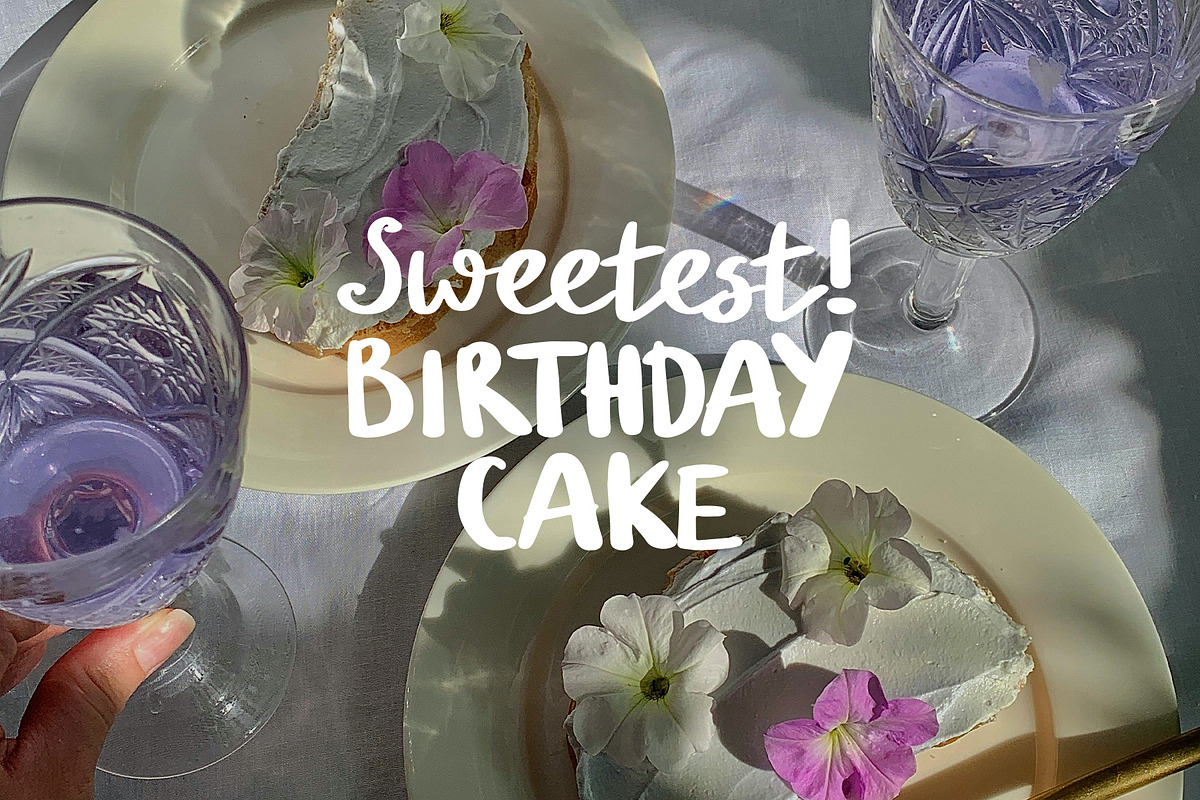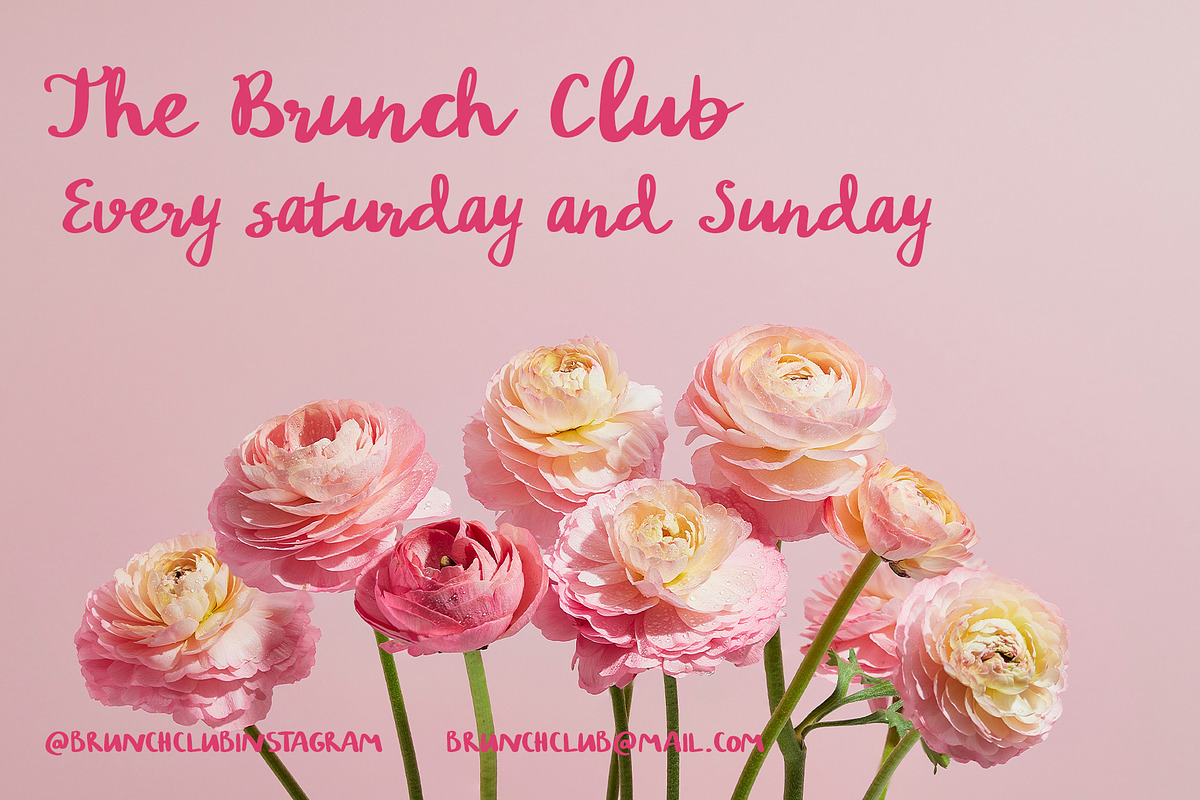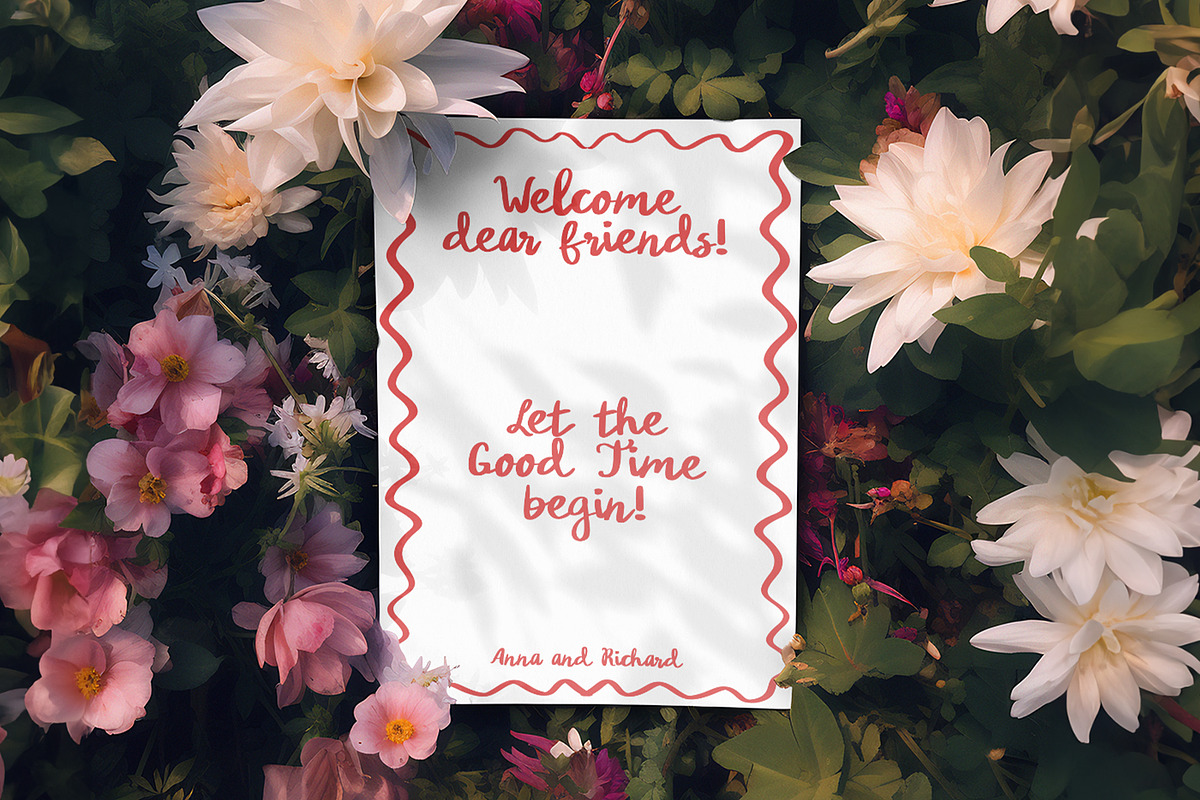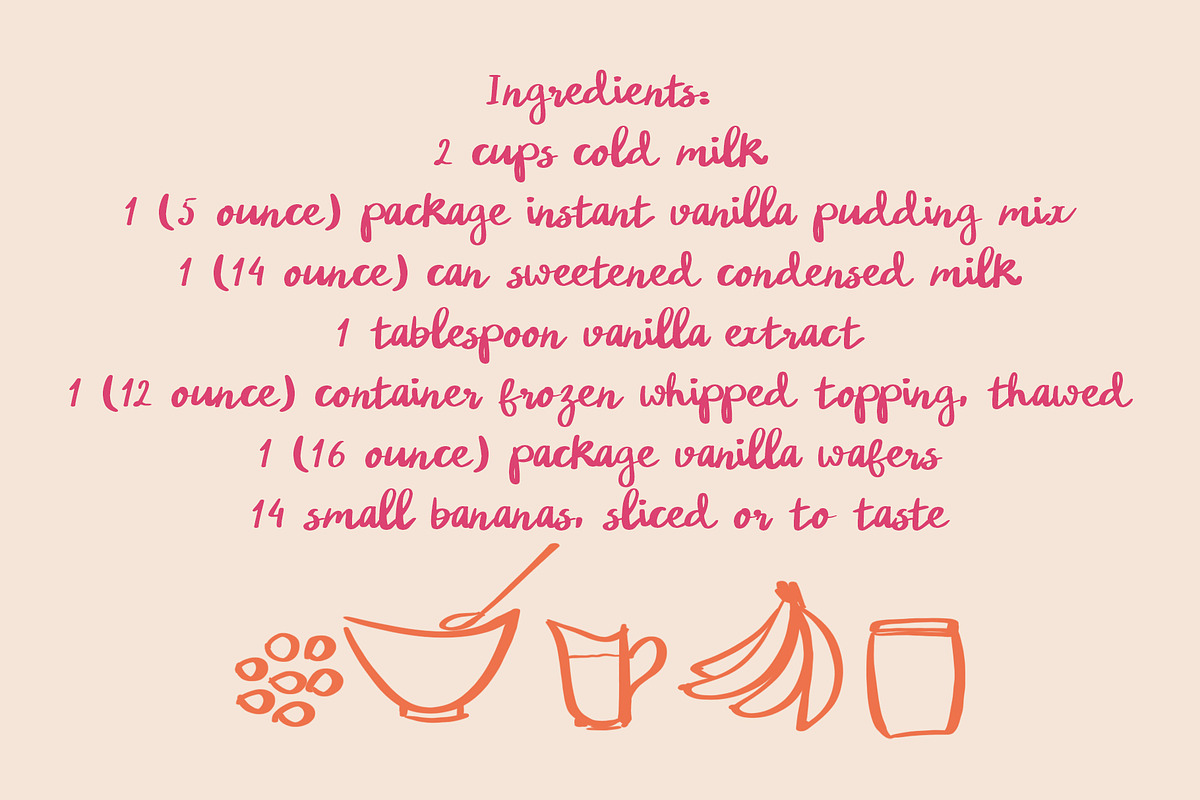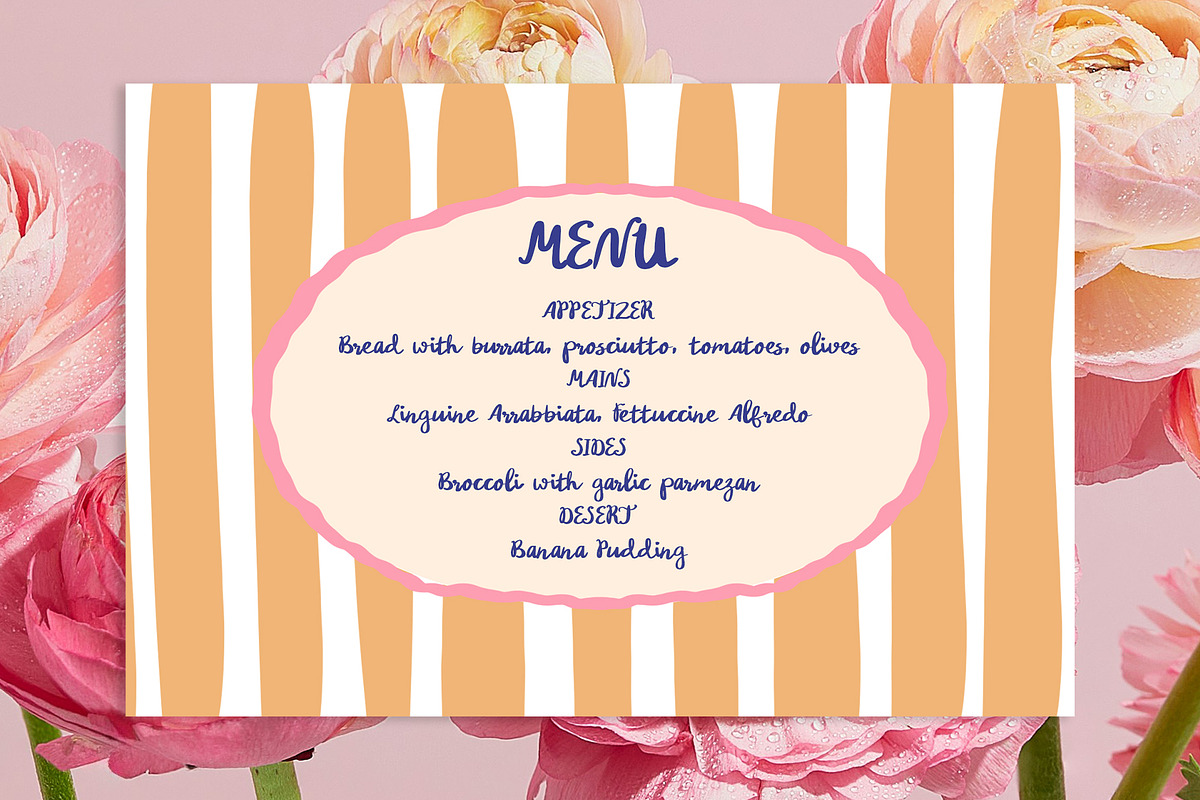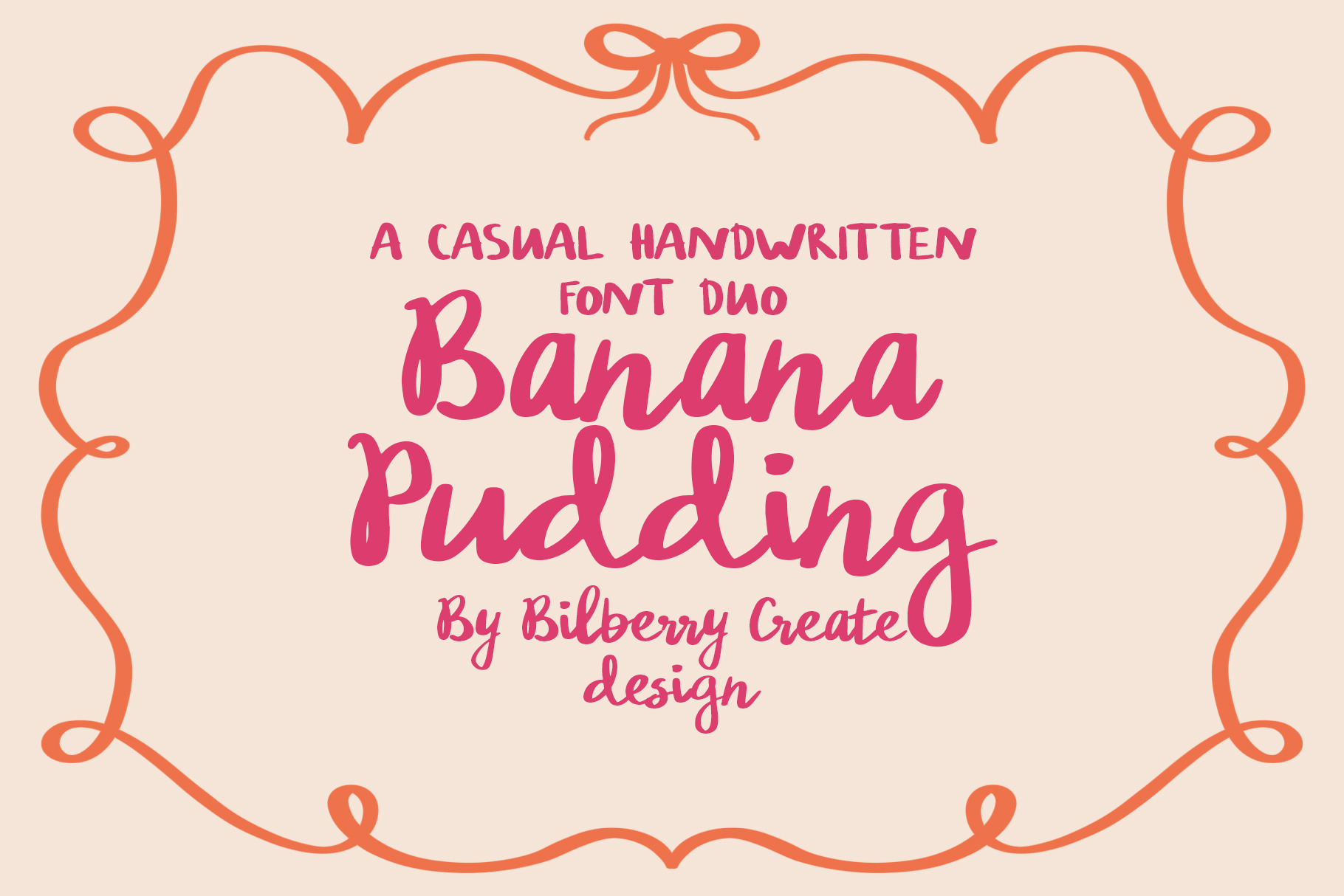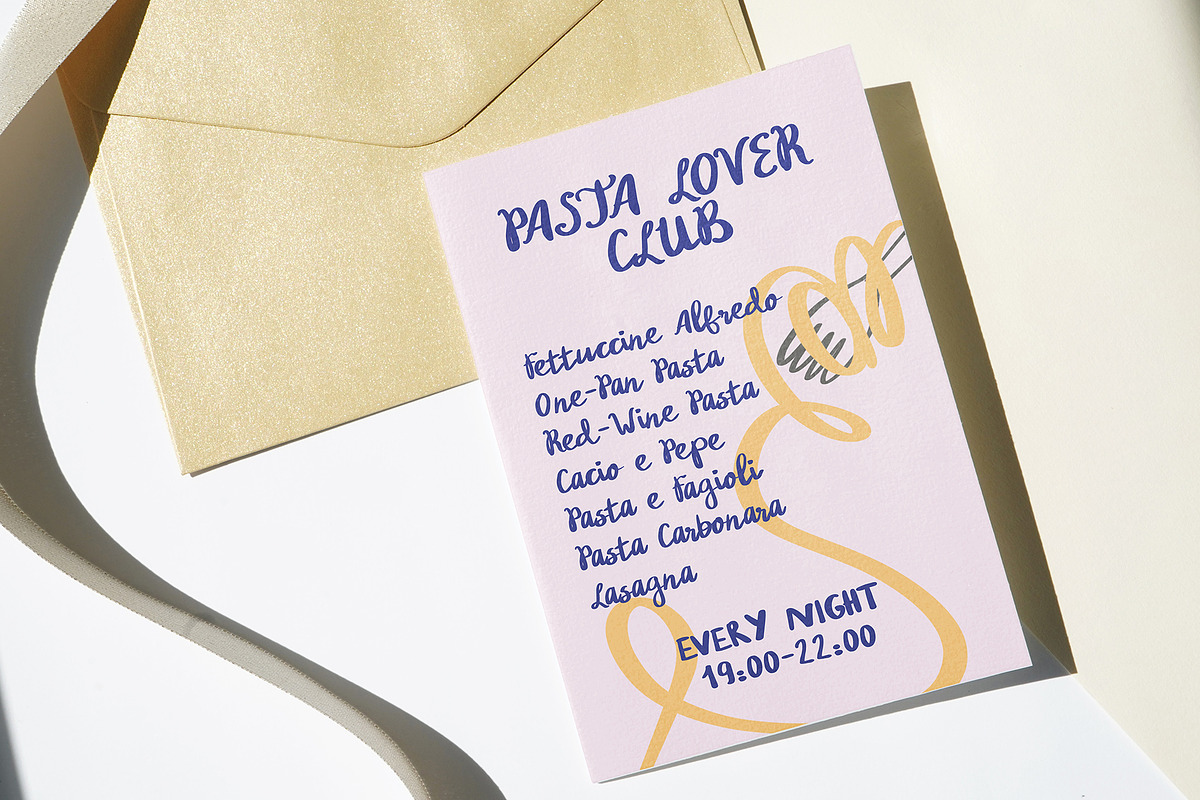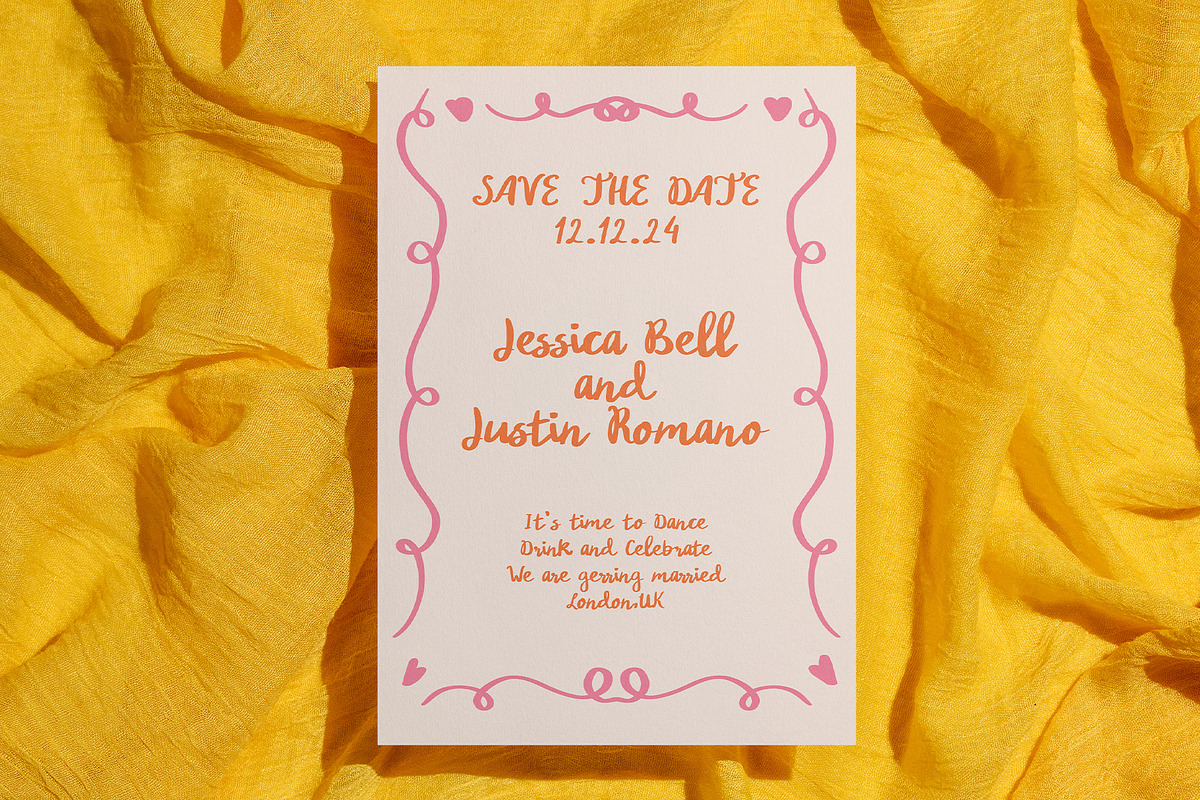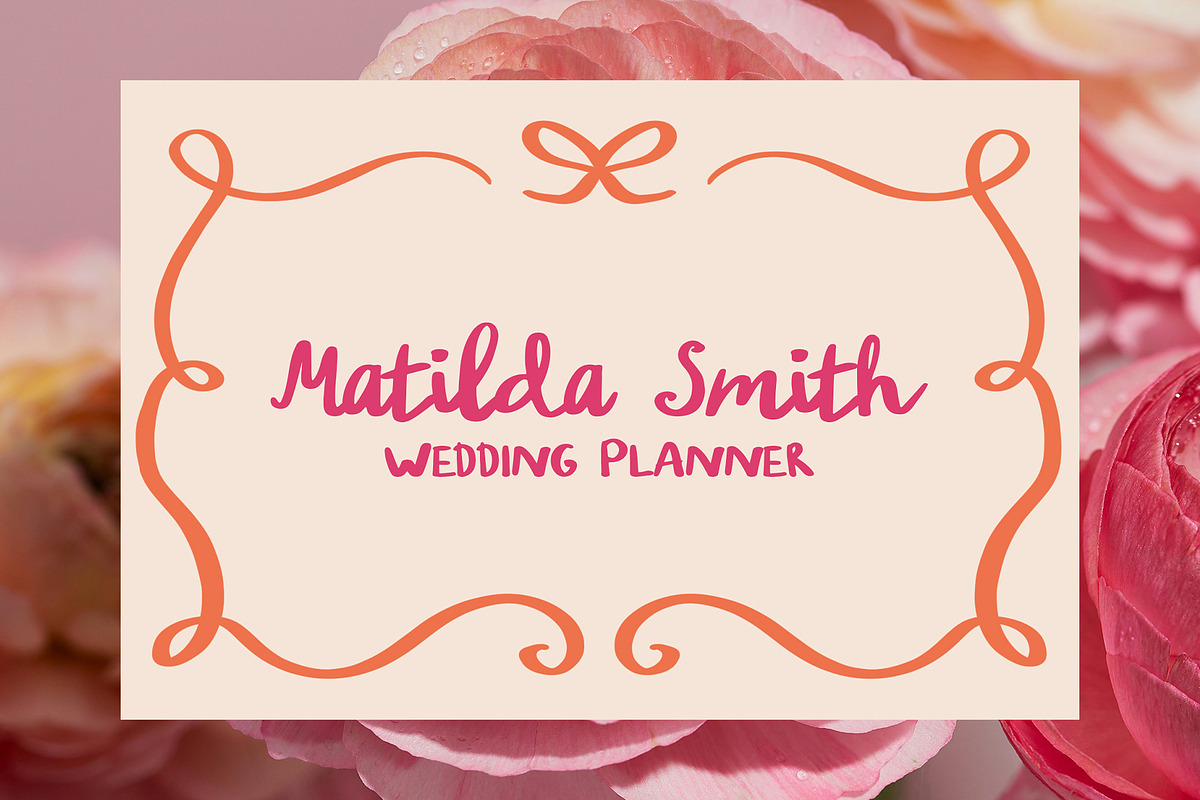
Banana Pudding handwritten font duo
Banana Pudding - Casual handwritten font duo!
This is a perfect handwritten font duo for any project. Be sure to click on the image to see all elements. This product was created to help you make your digital images even more beautiful and unique.
This pack can be used to create anything as you wish, logos invitation cards, wedding cards, birthday cards, home decor, packaging holiday gifts, party decorations, print on fabrics and so much more.
- Banana Pudding script
- Banana Pudding Sans